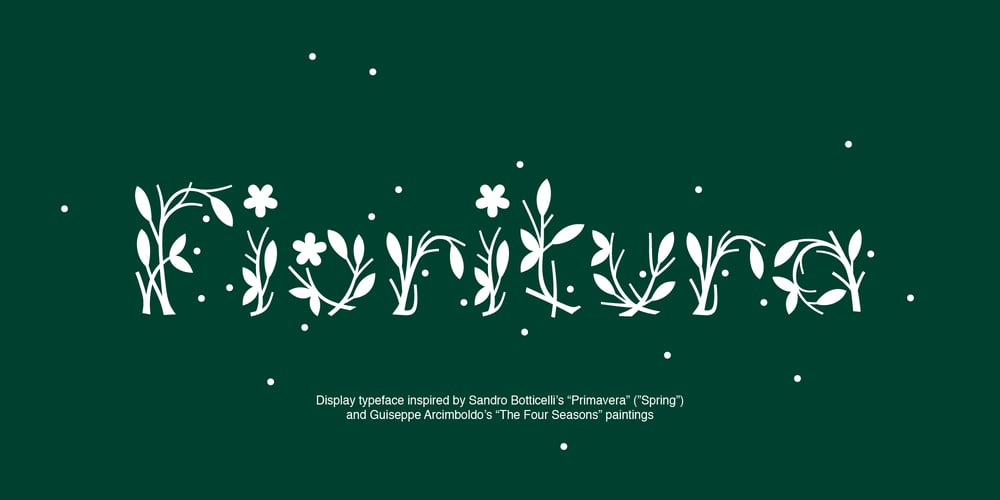
Fioritura Font Family was designed by Michael Rafailyk and published by Michael Rafailyk. Fioritura contains 1 styles and family package options. Fioritura is a floral display typeface inspired by Sandro Botticelli’s “Primavera” (“Spring”) and Guiseppe Arcimboldo’s “The Four Seasons” paintings. Fioritura means flowering in Italian, and the character composition consists of stems, leaves, flowers, and flying pollen.Scripts: Latin, Greek, Cyrillic.Language count: 480+.Glyph count: 1103.Kerning: 936 class pairs.Hinting: Not applied.Contextual Alternates: AA BB CC DD EE FF GG LL MM NN OO PP RR SS TT ZZ aa bb cc dd ee ff gg ll mm nn oo pp rr ss tt zz. To keep the writing natural, every second of two frequently repeated letters is automatically replaced by its alternative version. Turned on by default.Contextual Alternates: ΆΈΉΊΌΎΏ. Greek uppercase accented characters lose their tonos accent and retain only dieresis in All Caps mode. Turned on by default. If you need tonos accents in All Caps then turn off Contextual Alternates (calt) feature.Stylistic Alternates: ABCDEFGLMNOPRSTZ abcdefglmnoprstz.Supported languages: Abenaki, Abron, Acheron, Achinese, Achuar-Shiwiar, Adamawa Fulfulde, Adangme, Afar, Afrikaans (Latin), Aghem, Aguaruna, Aja, Akan, Albanian, Alsatian, Amahuaca, Amarakaeri, Amis, Andaandi (Dongolawi), Anuta, Ao Naga, Apinayé, Arabela, Aragonese, Aranese, Aromanian, Arrernte, Arvanitic (Latin), Asháninka, Asturian, Asu, Atayal, Awa-Cuaiquer, Awetí, Aymara, Azerbaijani (Latin, Cyrillic), Baatonum, Bafia, Bagirmi Fulfulde, Balinese, Balkan Romani, Bambara (Latin), Baoulé, Bari, Basaa, Bashkir (Latin), Basque, Batak (Latin), Belarusian (Latin, Cyrillic), Bemba, Bena, Biali, Bikol, Bini, Bislama, Boko, Bora, Borgu Fulfulde, Bouna Kulango, Bosnian, Breton, Buginese (Latin), Bulgarian, Buryat, Bushi, Candoshi-Shapra, Cape Verdean Creole, Caquinte, Caribbean Hindustani, Cashibo-Cacataibo, Cashinahua, Catalan, Cebuano, Chachi, Chamorro, Chavacano, Chayahuita, Chechen, Chewa (Latin), Chickasaw, Chiga, Chiltepec Chinantec, Chokwe, Chuukese, Cimbrian, Cofán, Colognian, Cornish, Corsican, Creek (Muscogee), Croatian, Czech, Dagaare, Dagbani, Danish, Dawan, Dehu, Delaware, Dendi, Dholuo, Dimli, Dinka, Ditammari, Drehu, Duala, Dutch, Dungan, Dyula, Embu, English, Erzya, Ese Ejja, Esperanto, Estonian, Ewe, Ewondo, Falam Chin, Fanti, Faroese, Fijian, Filipino, Finnish, Folkspraak, Fon, French, Friulian, Frisian, Fula, Gagauz (Latin), Galician, Ga’anda, Garifuna, Gen, Genoese, German, Gikuyu, Gilbertese, Gonja, Gooniyandi, Greek, Greenlandic (Kalaallisut), Guadeloupean Creole, Guarani, Gusii (Latin), Gwich’in, Haitian, Hakha Chin (Latin), Hän, Hani, Hausa (Latin), Hawaiian, Hiligaynon, Ho-Chunk, Hopi, Hotcąk (Latin), Huastec, Hungarian, Icelandic, Ido, Igbo (Latin), Ilocano, Indonesian, Interglossa, Interlingua, Irish, Istro-Romanian, Italian, Ixcatlán Mazatec, Jamaican, Javanese (Latin), Jèrriais, Jola, Kabuverdianu, Kabiyè, Kabuverdianu, Kabyle (Latin), Kaingang, Kako, Kala Lagaw Ya, Kalaallisut, Kalenjin, Kalmyk (Cyrillic), Kamba, Kanuri, Kaonde, Kapampangan (Latin), Kaqchikel, Karachay (Cyrillic), Karakalpak (Latin), Karelian, Kashubian, Kazakh, Kekchí, Kenzi, Khalkha (Cyrillic), Khasi, Khoekhoe, K’iche’, Kikuyu, Kimbundu, Kinyarwanda (Ruanda), Kiribati, Kirmanjki, Kirundi (Rundi), Kissi, Kituba, Klingon, Kölsch, Kongo, Konzo, Koyra Chiini, Koyraboro Senni, Kpelle, Krio, Kuanyama, Kumyk, Kurdish, Kven Finnish, Kwasio, Kyrgyz (Cyrillic), Ladin, Ladino, Lakota, Lamnso’, Langi, Latgalian, Latin, Latino sine Flexione, Latvian, Ligurian, Limba, Lingala, Lithuanian, Lobi, Lojban, Lombard, Low German, Lozi, Luba-Katanga, Luba-Lulua, Luo, Luxembourgish, Luyia, Maasai, Maasina Fulfulde, Macedonian, Machame, Madurese (Latin), Makhuwa, Makonde, Makwe, Malagasy (Latin), Malaysian Malay (Latin), Maltese, Mam, Maninkakan, Manx, Maore Comorian, Māori, Mapudungun, Marquesan, Marshallese, Masai, Matsés, Mauritian Creole, Mbelime, Megleno-Romanian, Mende, Meriam Mir, Meru, Meta’ (Latin), Metlatónoc Mixtec, Mezquital Otomi, Mi’kmaq, Minangkabau, Mirandese, Mískito, Miyobe, Mizo, Mohawk, Moksha, Moldovan, Mongolian (Cyrillic), Montagnais, Montenegrin (Latin, Cyrillic), Mossi, Mundang, Munsee, Murrinh-Patha, Murui Huitoto, Mwani, Naga Pidgin, Nagamese Creole, Nahuatl, Nama, Nateni, Navajo, Ndebele, Ndonga, Neapolitan, Ngazidja Comorian, Ngiemboon, Ngiyambaa, Ngomba, Nigerian Fulfulde, Niuean, Nobiin, Nomatsiguenga, Noongar, Norwegian (Bokmål, Nynorsk), Novial, Nuer, Nyamwezi, Nyanja, Nyankole, Nyemba, Nzima, Occidental (Interlingue), Occitan, Ojitlán Chinantec, Old Icelandic, Old Norse, Onĕipŏt, Oromo, Oroqen, Oshiwambo (Ovambo), Ossetian (Latin, Cyrillic), Otuho, Páez, Palauan, Paluan, Pampanga, Papantla Totonac, Papiamentu, Pedi, Picard, Pichis Ashéninka, Piedmontese, Pijin, Pintupi-Luritja, Pipil, Pohnpeian, Polish, Portuguese, Potawatomi, Prussian, Pulaar, Pular, Purepecha, Qiandong Miao, Quechua, Rarotongan, Romani, Romanian, Rom